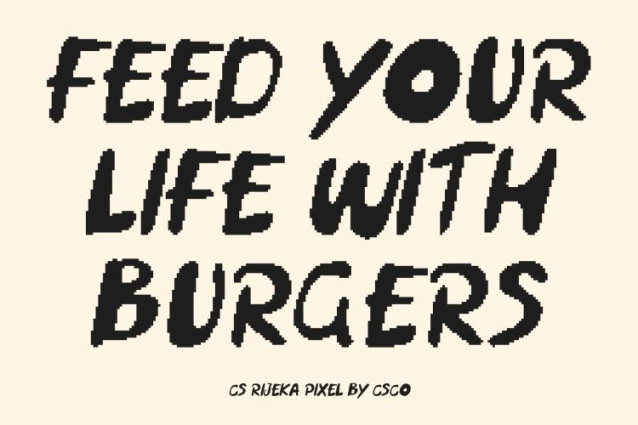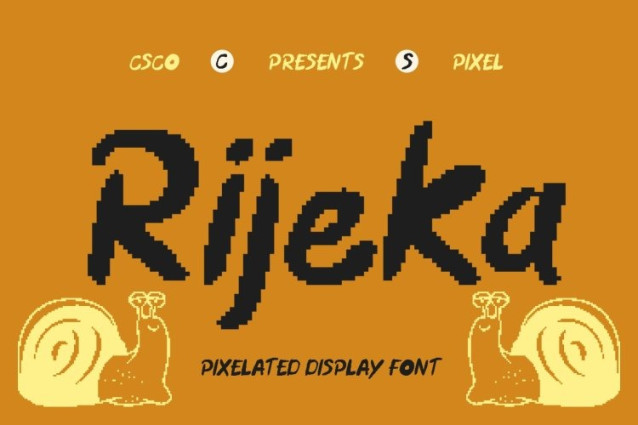
CS Rijeka Pixel Font
CS Rijeka Pixel Font This is a playful handdrawn font designed to bring warmth, charm, and personality into modern designs. Its relaxed letterforms are enhanced with subtle pixel-inspired structure, giving the font a friendly digital feel while preserving its natural, hand-sketched character.
Cute and Fun Vibe with Scribble Energy
Featuring slightly abstract strokes and uneven lines, this font captures the spontaneity of casual doodles. The playful construction creates a cheerful and approachable tone, making the font feel lively, cute, and full of joyful energy. It’s especially effective for youth-focused, children’s, and lighthearted creative projects.
Perfect for Creative and Digital Projects
This font adapts effortlessly to posters, illustrations, packaging, stickers, and social media graphics. Its handdrawn personality paired with pixel clarity ensures strong visual impact on both screen and print, making it ideal for headlines, quotes, and expressive decorative text.
A Charming Complementary Typeface
This font also shines as a complementary font. When paired with clean sans serifs or bold display typefaces, it adds contrast and character without overwhelming the layout. Its handcrafted, playful authenticity brings balance and personality to structured designs.